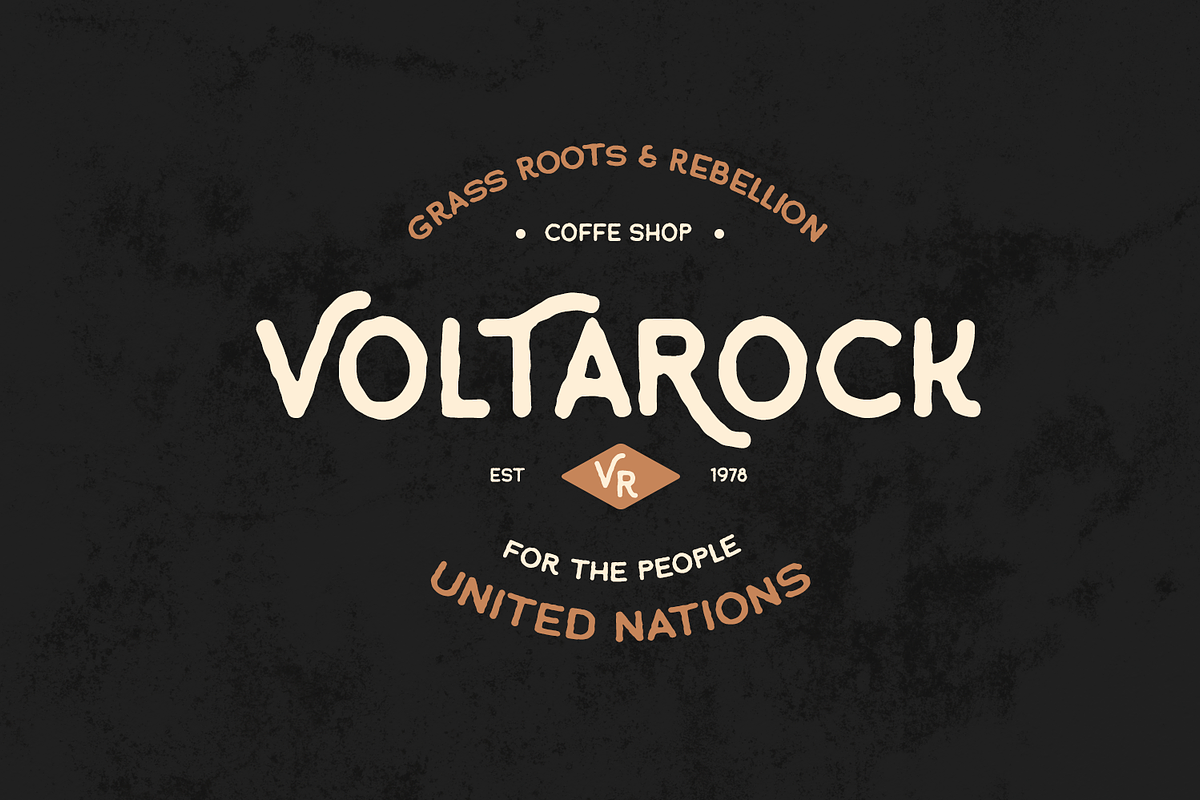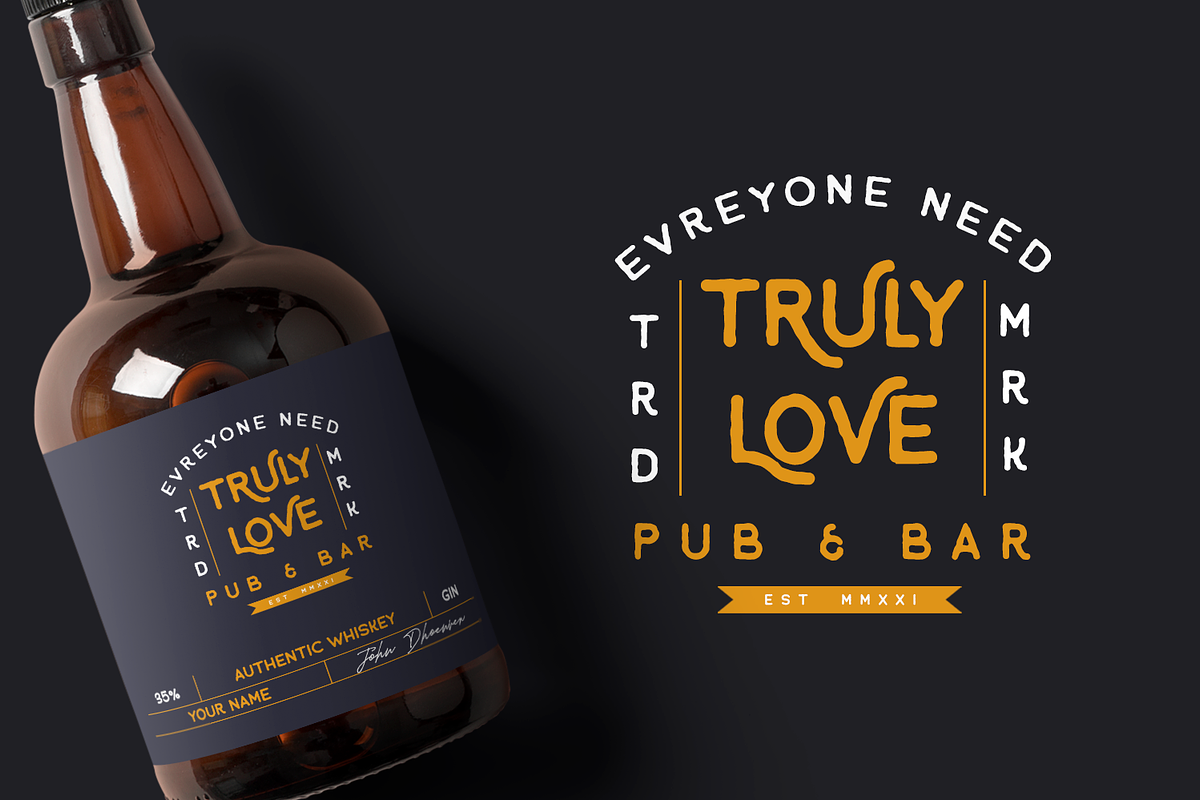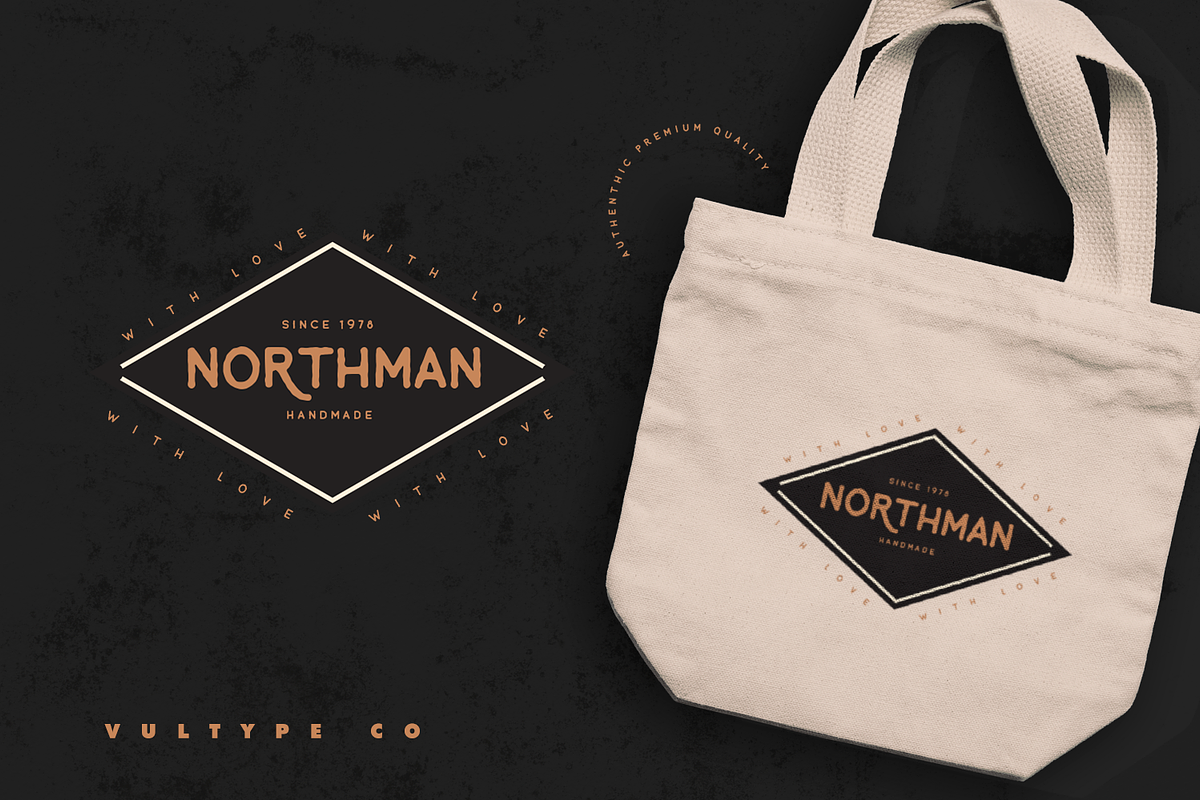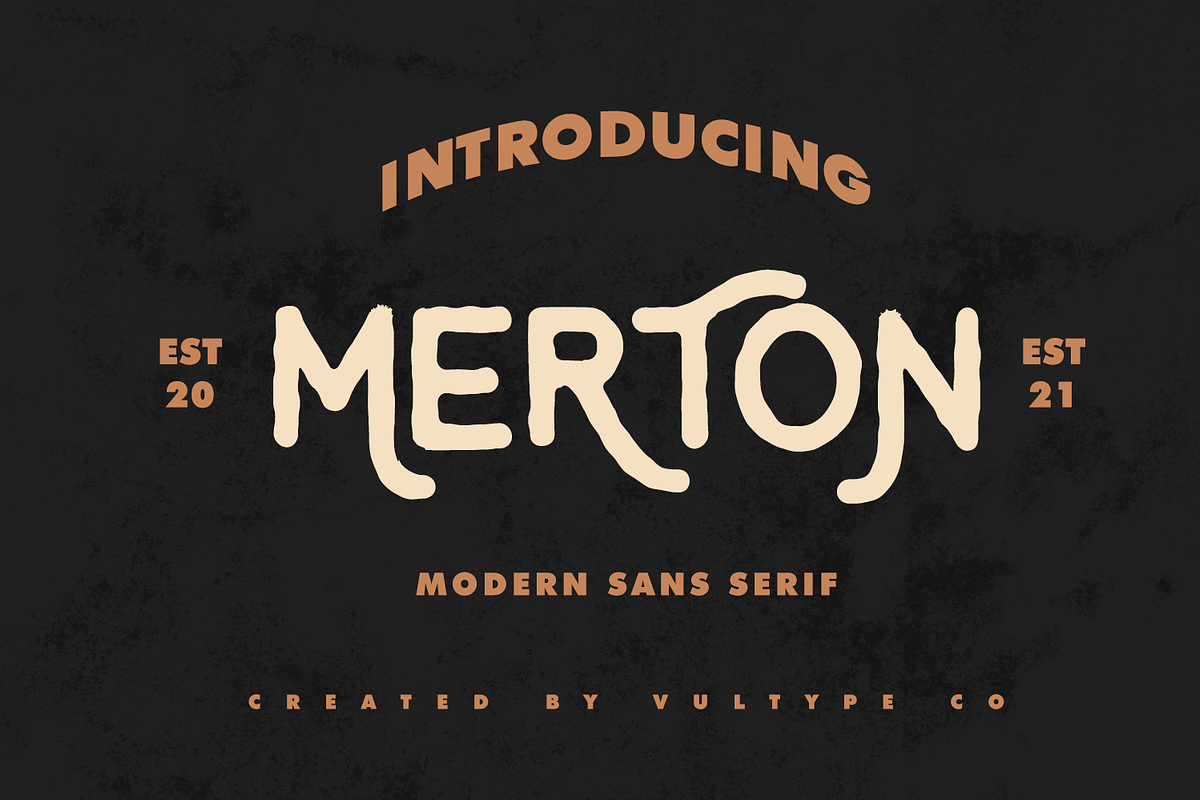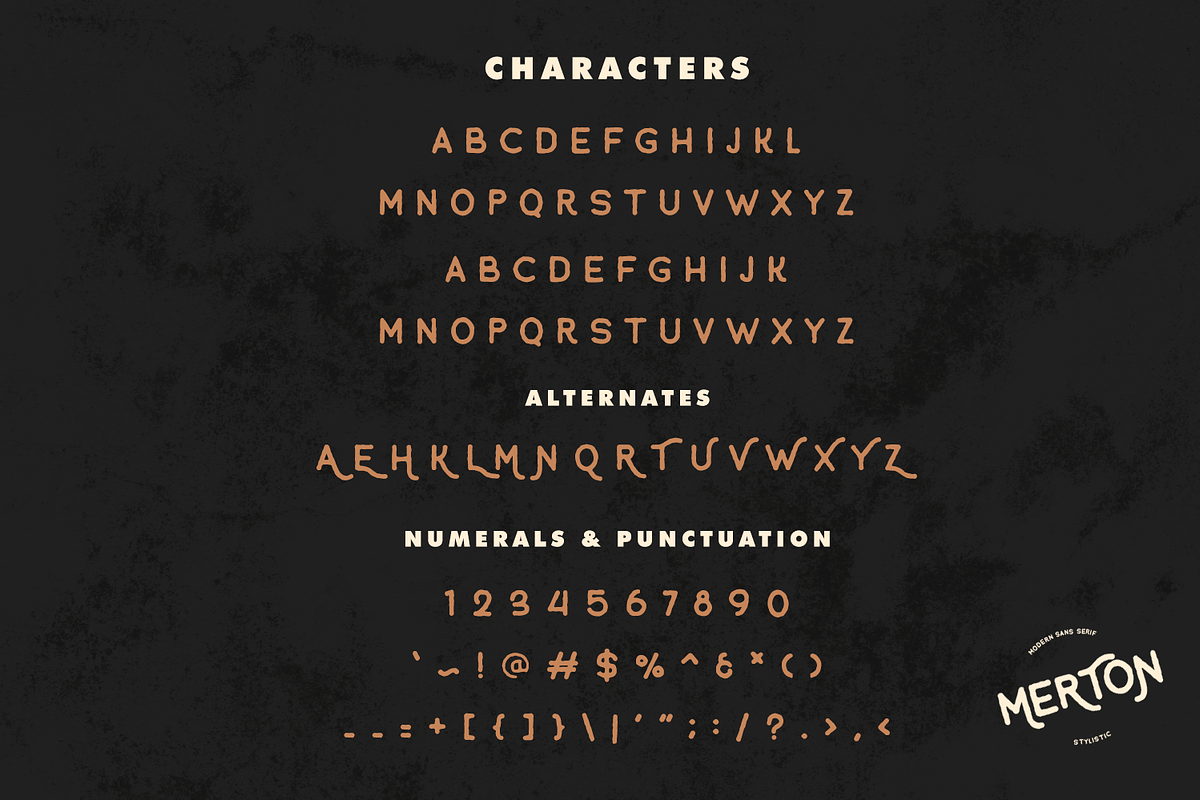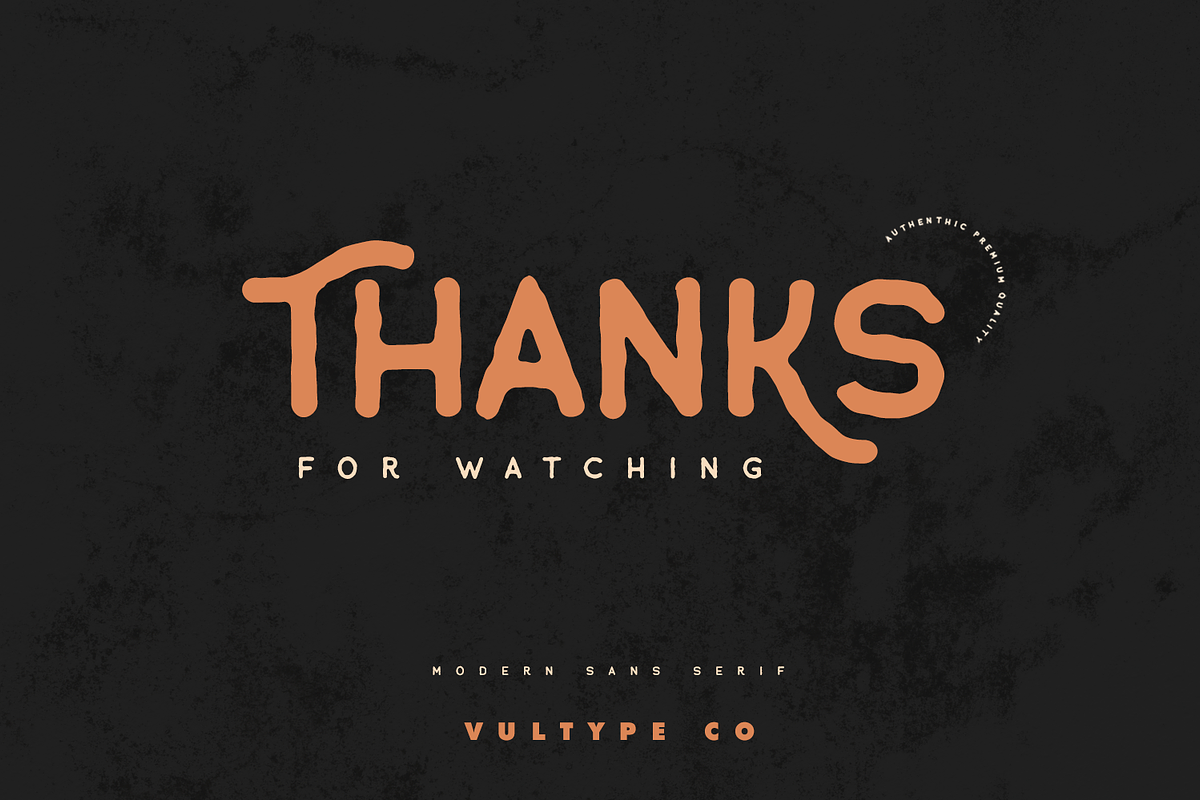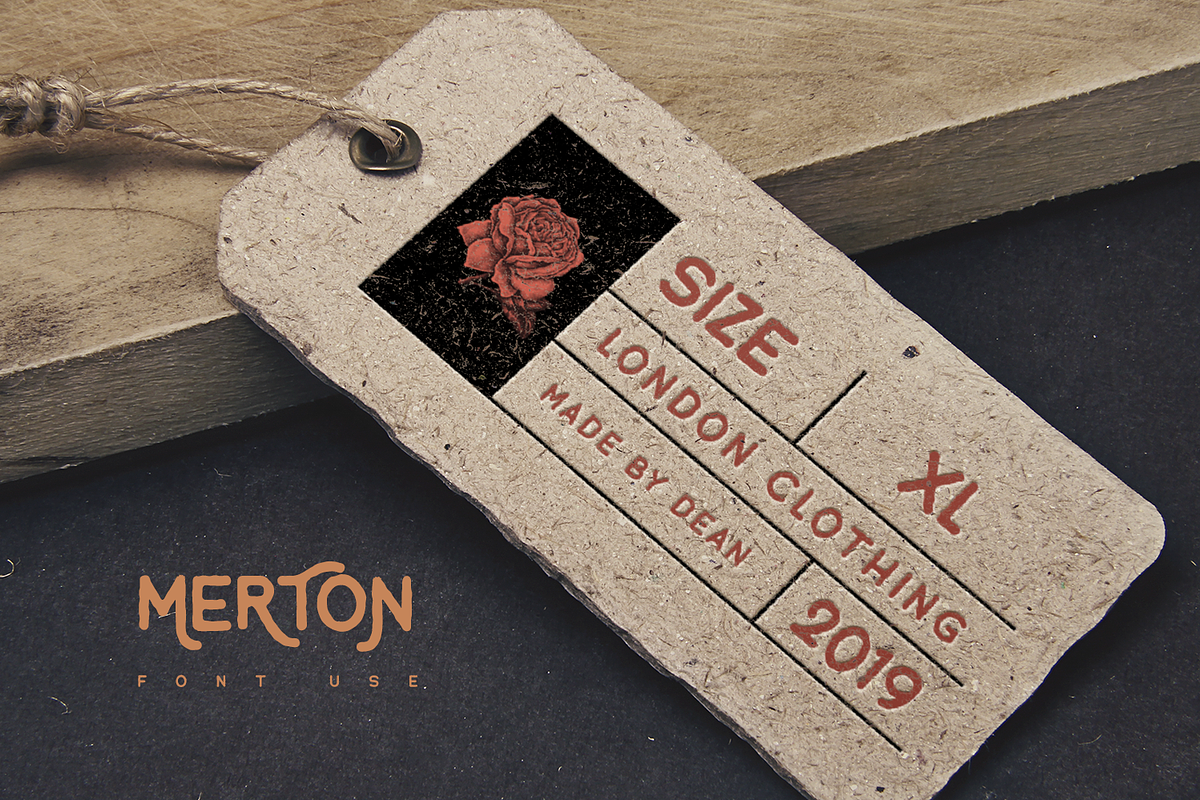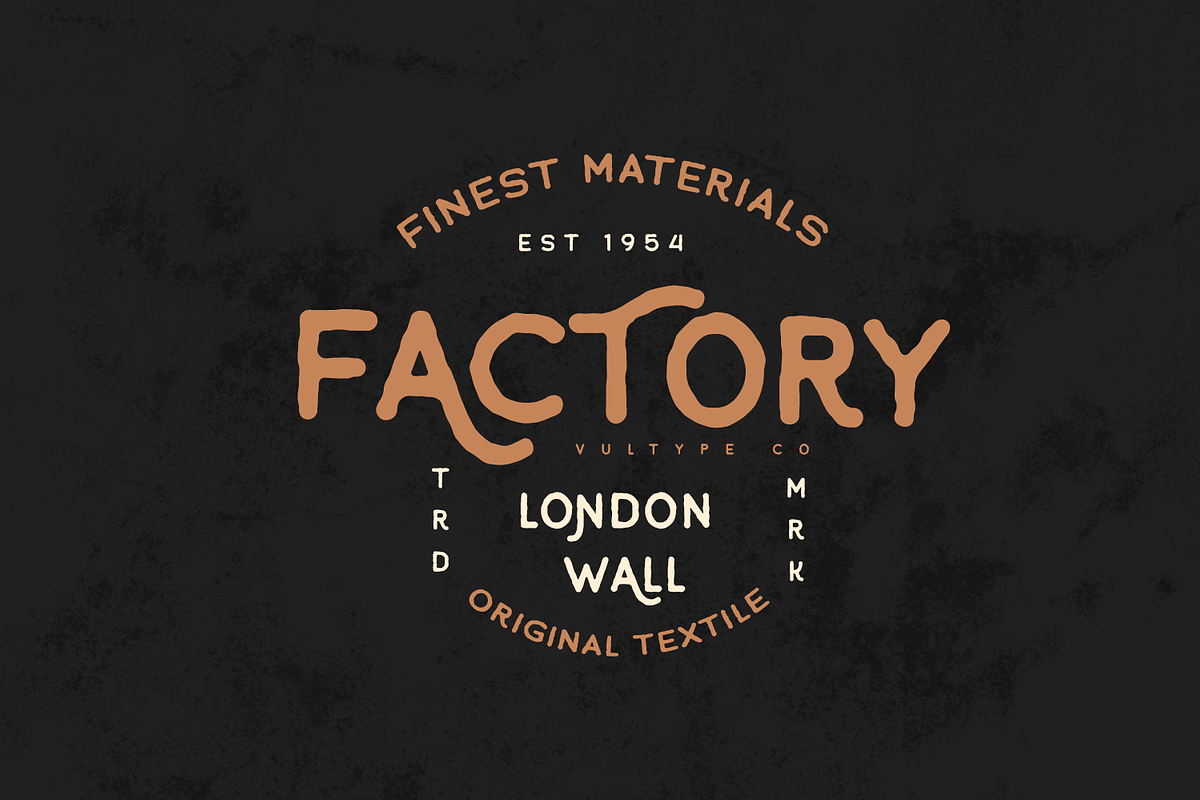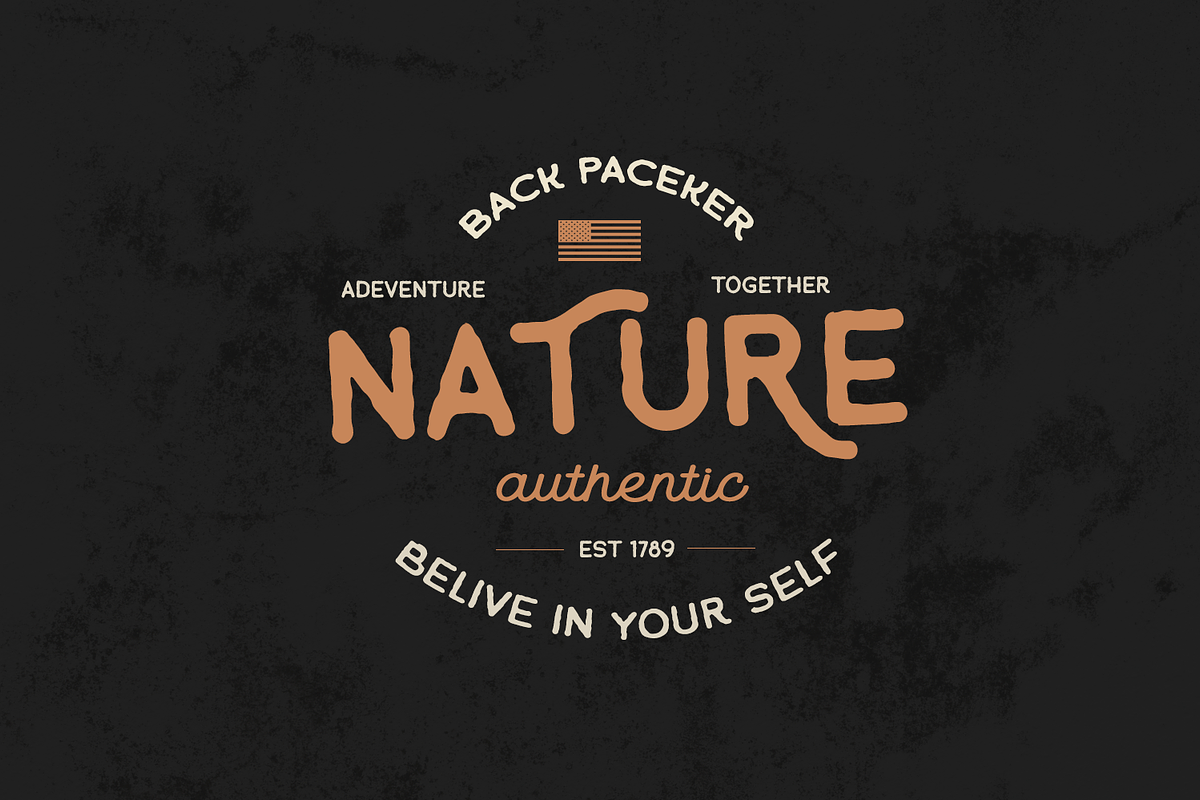
Merton - Vintage Handmade Font
Introducing Merton Vintage Font
The Merton is vintage sans serif font with 2 font styles including Regular and rough style
Made carefully to create the perfect texture and suitable for each of your projects also great for Logotype, Branding Design, Logo Design, Digital Lettering Arts, T-Shirt/Apparel, Poster, Magazine, Signs, Advertising Design, and any vintage design needs.
- Upper + Lowercase Letters
- OpenType features
- Numbers + Punctuation